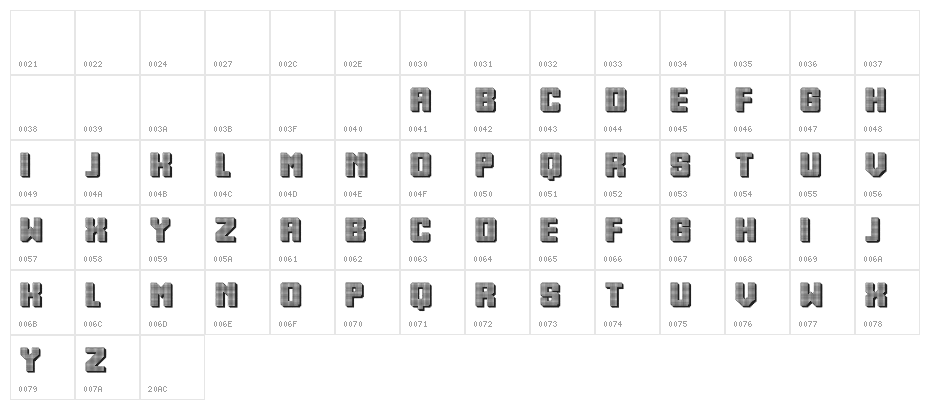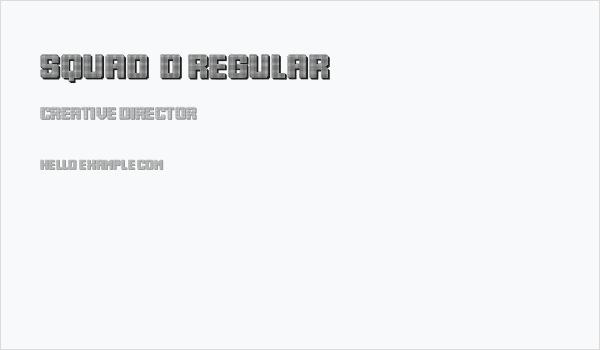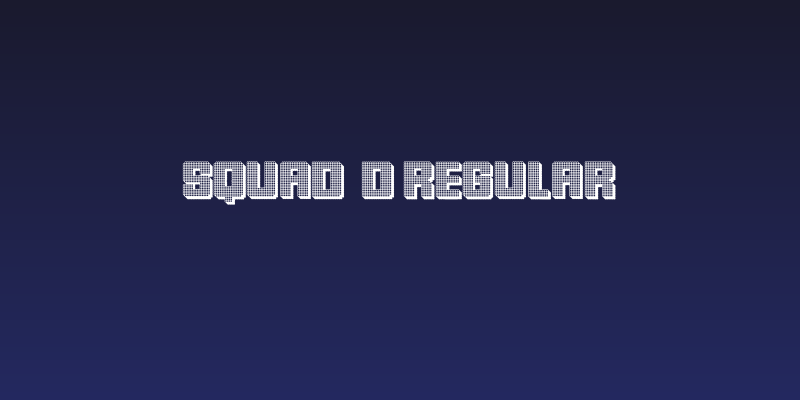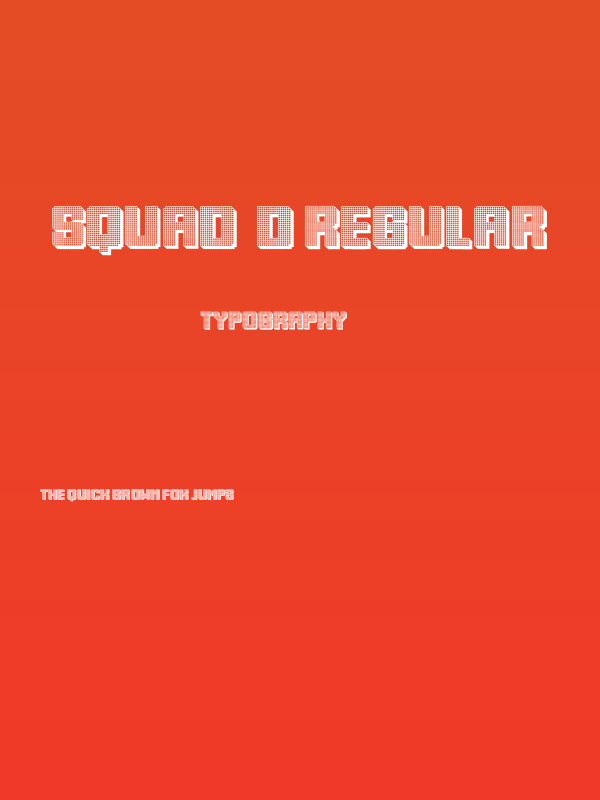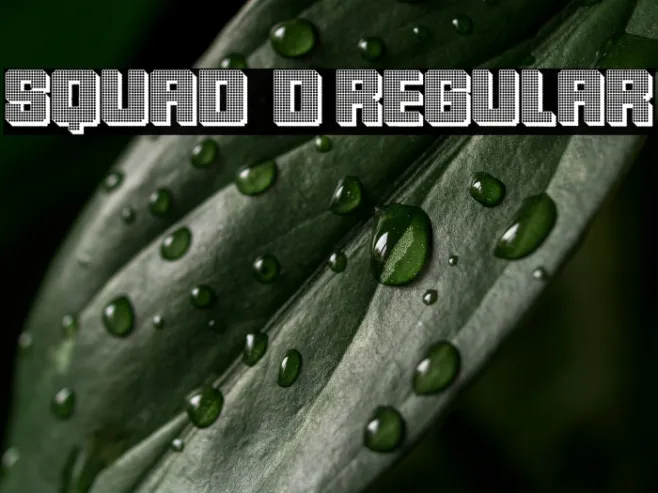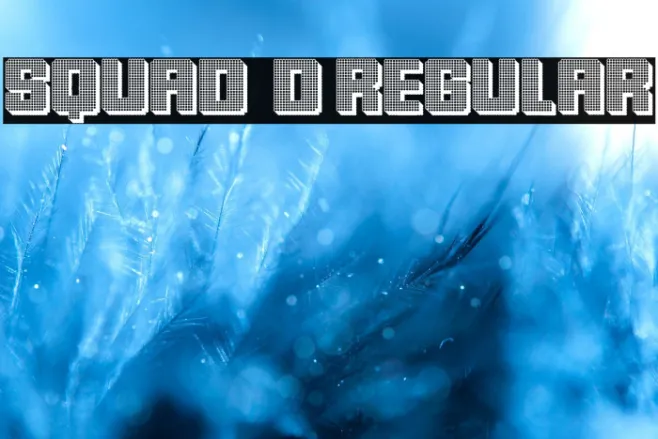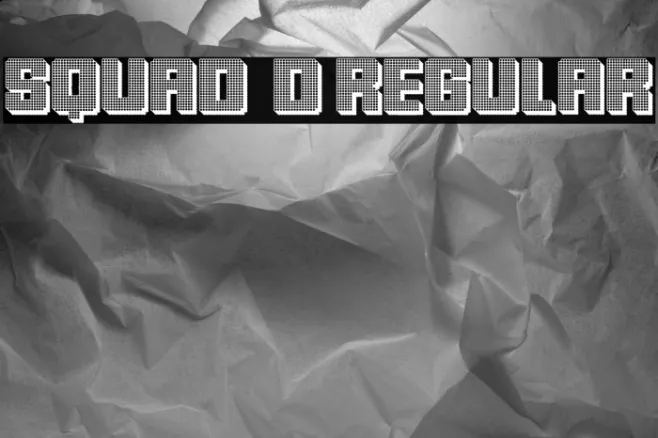
Squad 3D Regular Font
Squad 3D Regular Description
This font features a bold, three-dimensional design with a dotted texture that creates a visually striking effect. The letters are constructed with a grid-like pattern, giving them a modern and digital appearance. The 3D effect is enhanced by the shadowing, which adds depth and makes the characters stand out. This font is highly decorative and is best suited for projects that require a strong visual impact. Its unique style makes it ideal for use in digital media, posters, and any creative project that aims to capture attention.
| Proposed Projects | Ideal for digital media, posters, and creative projects needing a strong visual impact. |